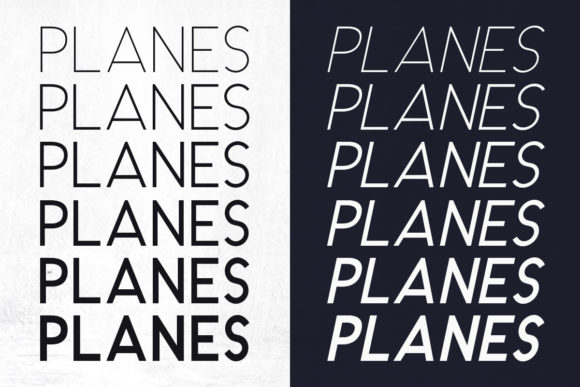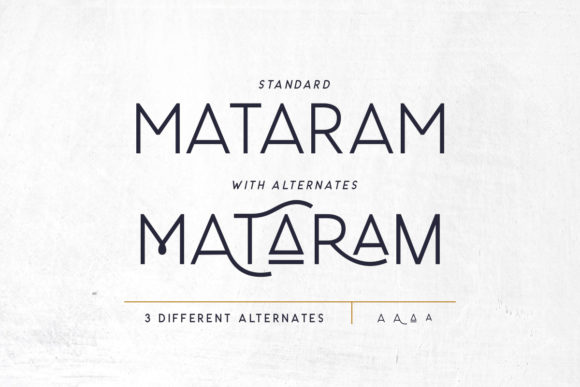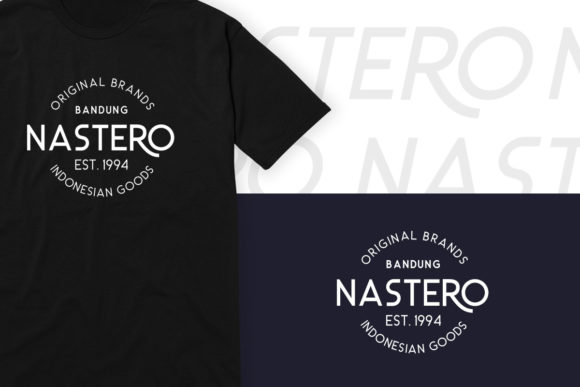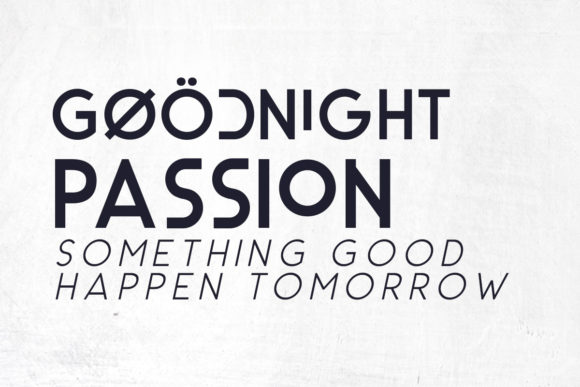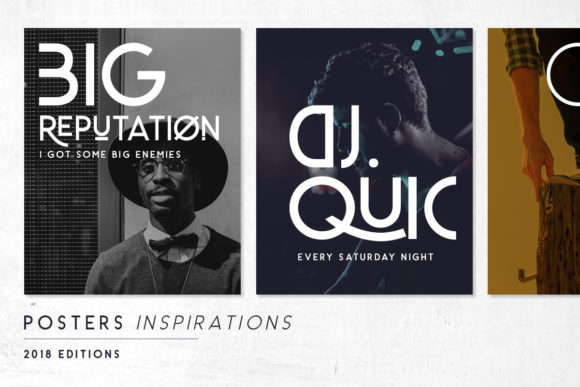
Introducing the Carrol Family Font: A Timeless Classic for Modern Designs
In the world of typography, a font can make or break a design. With the Carrol Family Font, designers and crafters have access to a versatile and stylish sans serif font that can elevate any project. This comprehensive font family consists of 16 unique styles, providing endless possibilities for creative expression.
A Classic and Modern Sans Family
The Carrol Family Font strikes the perfect balance between classic and modern design elements. Its clean lines, simple shapes, and uncluttered aesthetic make it an ideal choice for a wide range of applications. Whether you’re working on a logo, quote, heading, poster, or any other design project, this font family is sure to impress.
Key Features of the Carrol Family Font
• 16 Unique Styles: The Carrol Family Font includes 16 distinct styles, allowing designers to experiment with different looks and feels for their projects.
• Classic Sans Serif: The font’s classic sans serif design ensures it remains timeless and versatile, suitable for various design applications.
• High Versatility: From logos and quotes to headings and posters, the Carrol Family Font can be used for a multitude of design projects.
Applications of the Carrol Family Font
The Carrol Family Font’s adaptability makes it a valuable asset for designers and crafters. Here are some of the many ways you can utilize this font family:
• Logo Design: Create memorable and impactful logos with the Carrol Family Font’s range of styles.
• Quote and Typography Design: Use the font to craft visually appealing quotes and typography designs for social media, blogs, or marketing materials.
• Headings and Titles: Add a touch of elegance and sophistication to your headings and titles with the Carrol Family Font.
• Poster Design: Design eye-catching posters for events, promotions, or informational purposes using the font’s bold and clean aesthetic.
The Carrol Family Font offers numerous benefits for designers and crafters, including:
• Time-Saving: With 16 styles to choose from, designers can quickly find the perfect look for their project without having to create multiple font variations.
• Consistency: The font family’s cohesive design ensures consistency across various design elements, maintaining a professional look and feel.
• Creative Freedom: The range of styles within the Carrol Family Font provides the creative freedom to experiment and push design boundaries.
Tips for Using the Carrol Family Font
To get the most out of the Carrol Family Font, consider the following tips:
• Mix and Match Styles: Combine different styles within the font family to create visual interest and hierarchy in your designs.
• Experiment with Colors: Take advantage of the font’s versatility by experimenting with various color schemes and combinations.
• Pair with Other Fonts: Use the Carrol Family Font in conjunction with other fonts to create unique and visually appealing typography designs.
The Carrol Family Font is a powerful tool for designers and crafters seeking a classic yet modern sans serif font. With its 16 unique styles, versatility, and timeless design, this font family is perfect for a wide range of applications. By incorporating the Carrol Family Font into your design workflow, you’ll be able to create stunning and professional-looking designs that stand out from the crowd.
Get Creative with Carrol Family Font